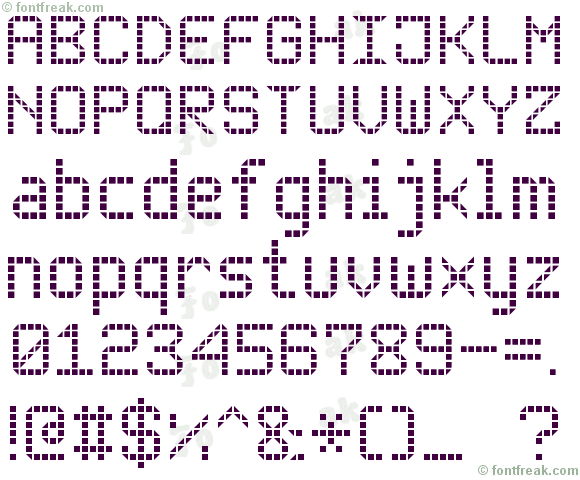
Rounded LED Board-7
Rounded LED Board-7 is a unique display font that captures the essence of modern digital signage with its rounded, block-like characters. This font, designed by Style-7, features a distinctive LED-inspired aesthetic that combines playful curves with a structured appearance. The stroke weight is consistent, offering a uniform look across all characters, while the spacing is well-balanced, ensuring readability even at larger sizes. The font’s decorative elements mimic the appearance of LED lights, providing a contemporary touch that is both eye-catching and functional.
This versatile font is ideal for a range of applications. It excels in digital signage, making it perfect for menu boards in restaurants or promotional displays at events. Additionally, the Rounded LED Board-7 font can be effectively used in creative projects like movie posters or flyers, where it can draw attention and convey a sense of modernity. Graphic designers will find it suitable for branding projects, especially for businesses that want to project a tech-savvy image. Small business owners will appreciate its ability to enhance their marketing materials and attract customers.
What sets Rounded LED Board-7 apart is its blend of style and functionality. Its unique LED-inspired design not only makes it visually appealing but also ensures that it stands out in a crowded market. Whether used for digital or print applications, this font is sure to leave a lasting impression on viewers, making it an excellent addition to any designer's toolkit.